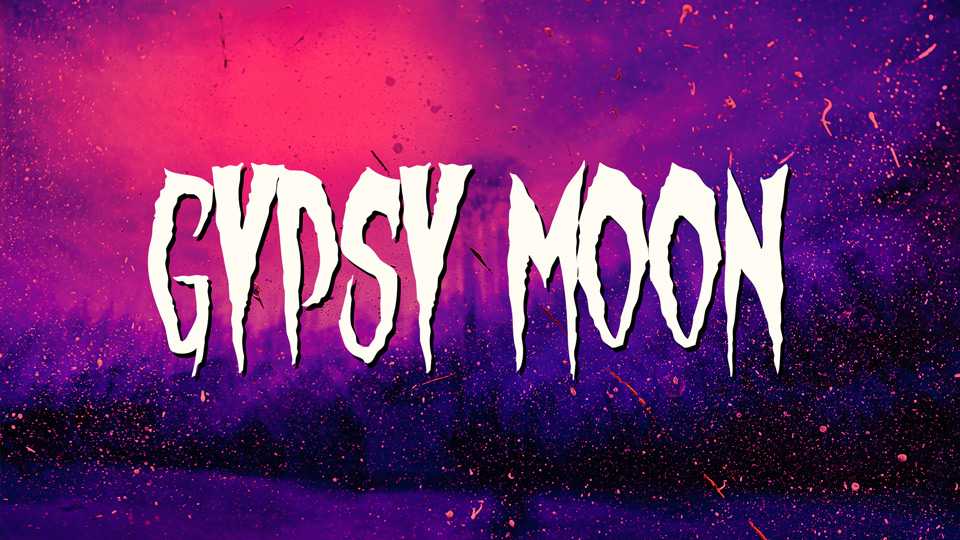
Download Gypsy Moon font, a creepy typeface that oozes horror and suspense. Gypsy Moon is the ideal choice when you want to infuse your designs with a sense of creeping dread and supernatural intrigue.
Designer: Sinister Fonts